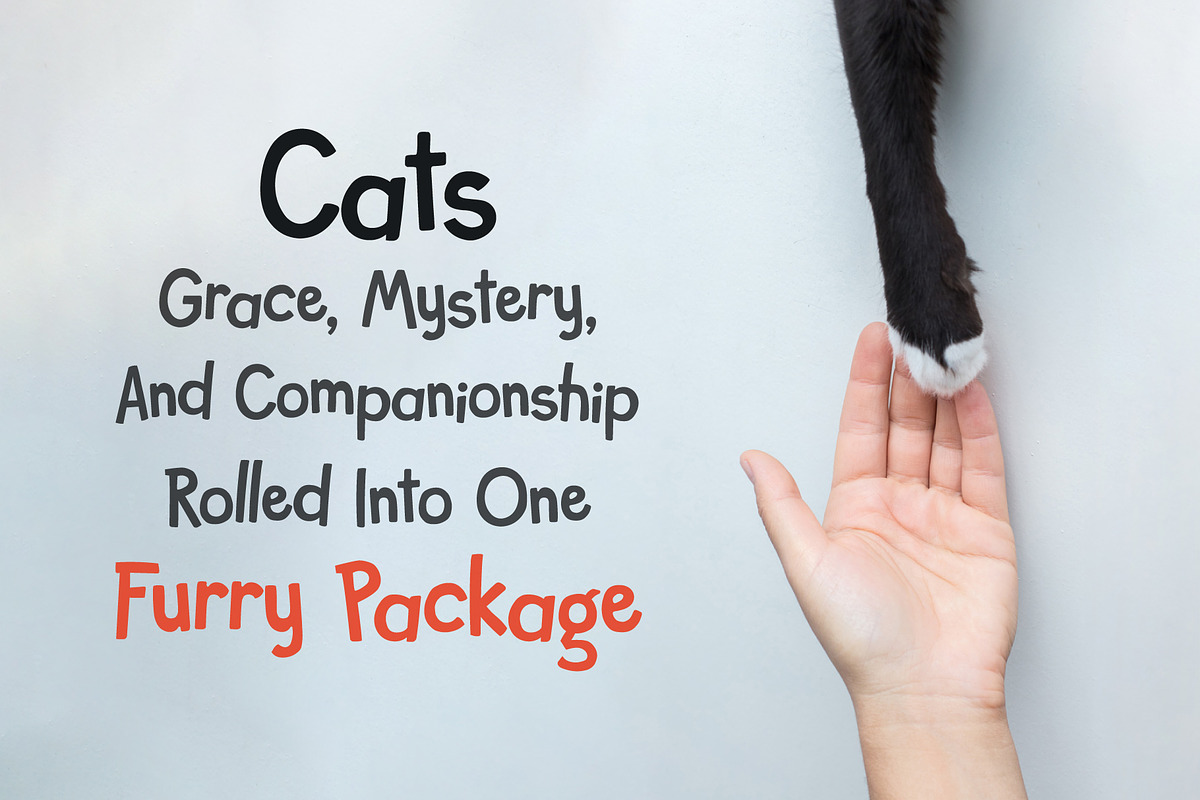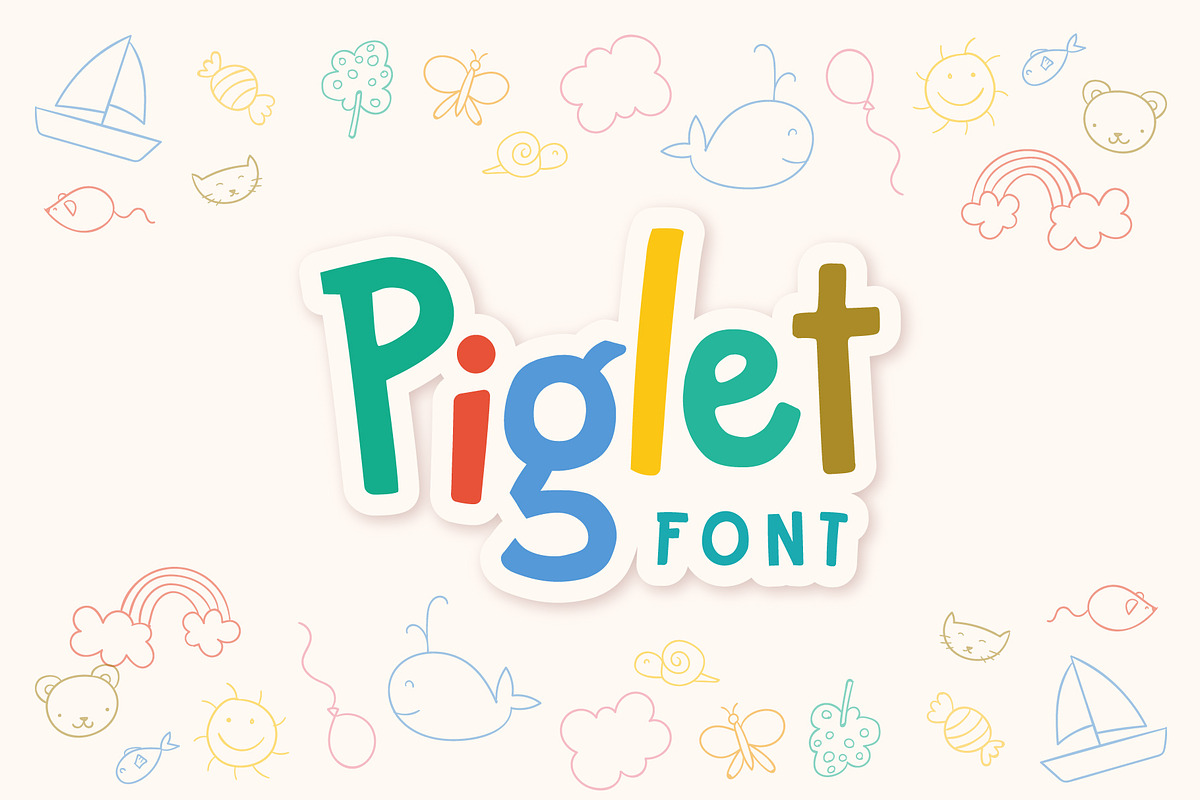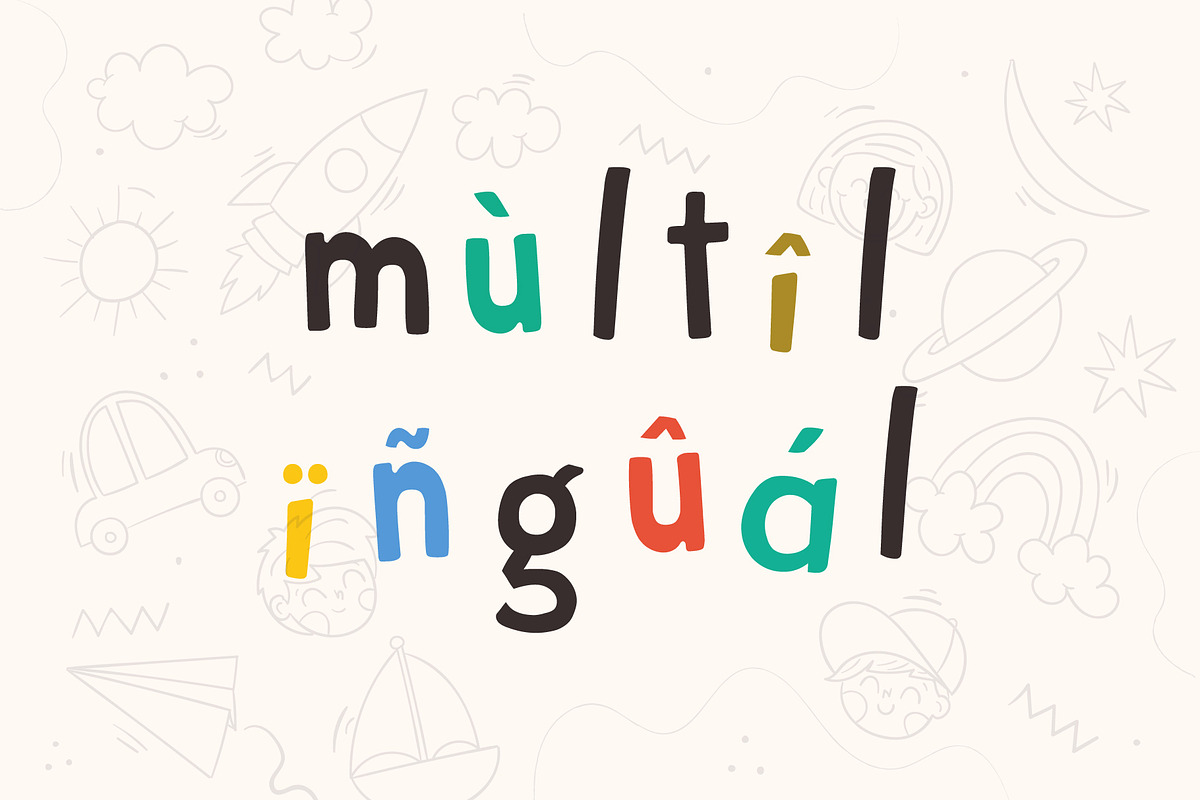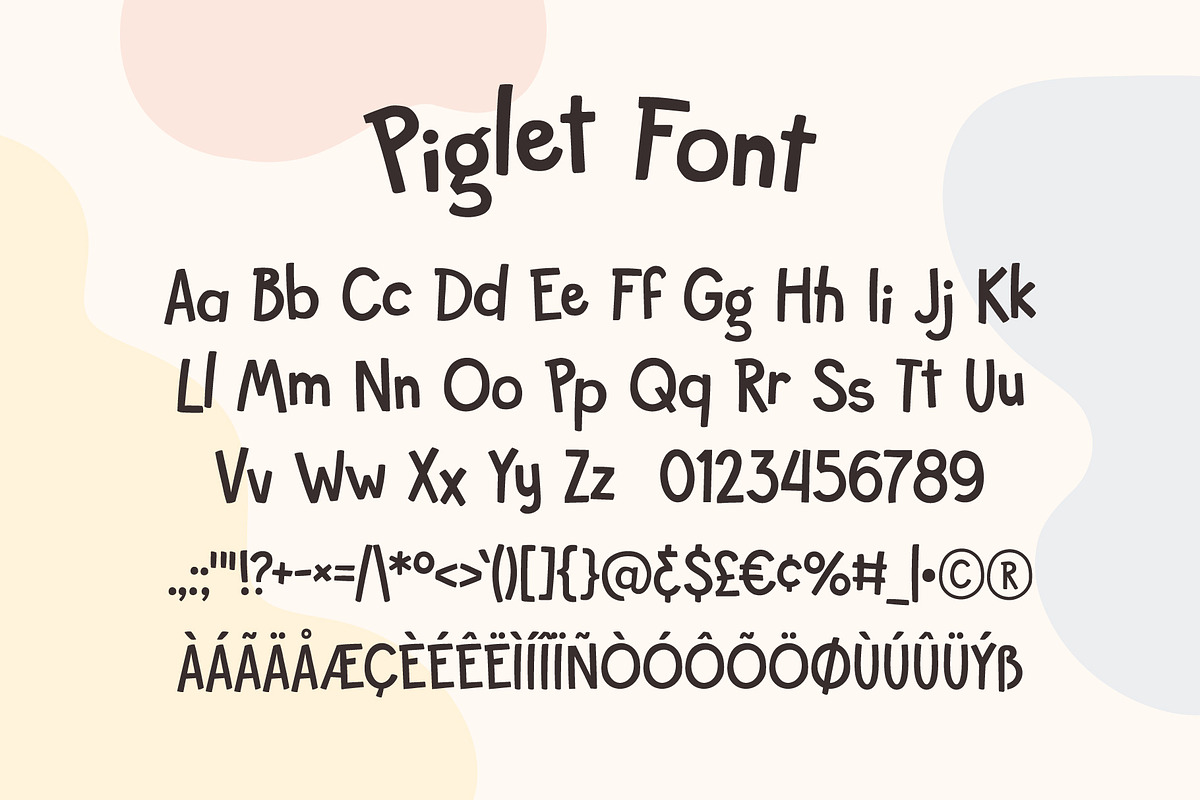
Piglet
Introducing Piglet – a font that encapsulates the joy and whimsy of childhood memories! Crafted with a handwritten touch, its characters dance on the page, bringing to mind the delightful days of kids at school, scribbling away in their notebooks.
Drawing inspiration from famous cartoons, "Piglet" combines a sense of fun and fancy, making it perfect for logos that aim to capture a friendly and inviting vibe. Its cute and playful design shines in creative projects, making it a top choice for children-centric brands and events.
Whether you're designing an enchanting storybook cover or a logo for a children's event, "Piglet" promises to add that perfect blend of fun and charm to your wor